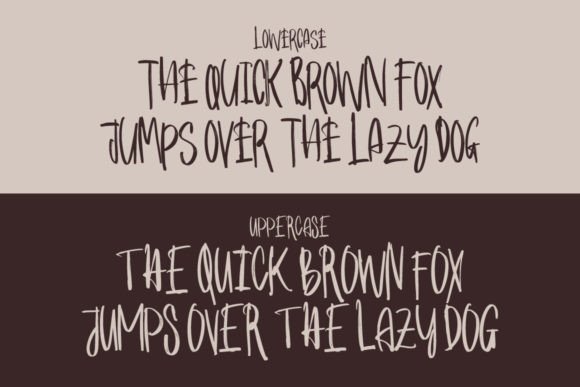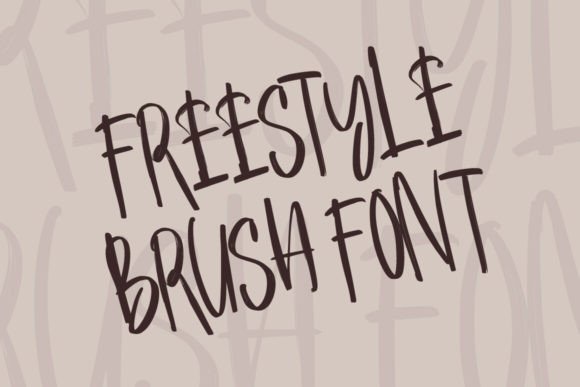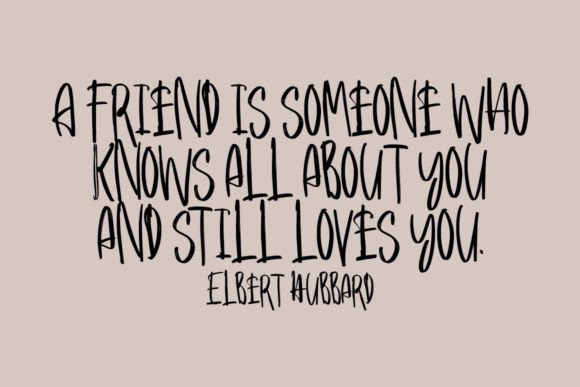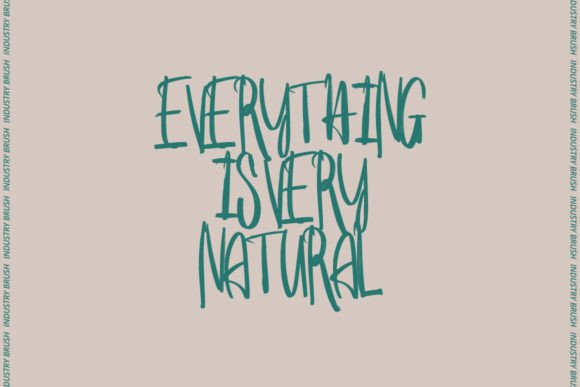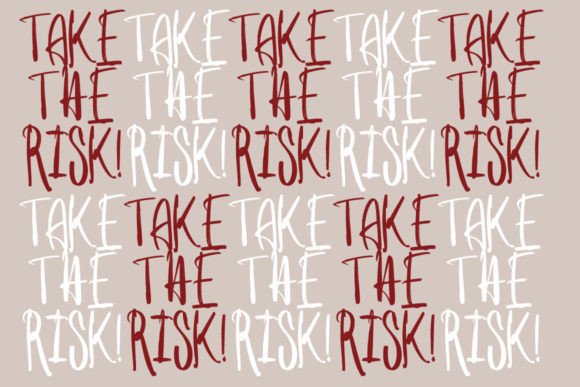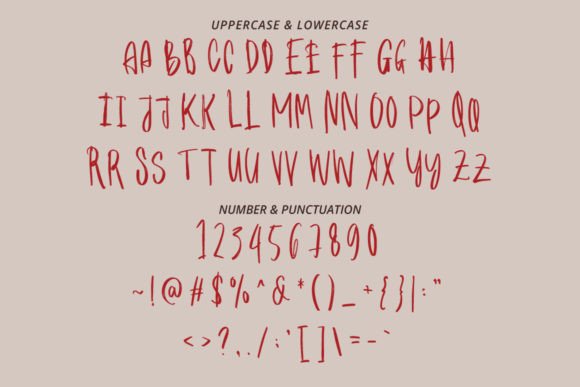
Introduction to Industry Brush Font
Industry Brush is a typeface with personality.
You can use it as a logo, badge, insignia, packaging, headline, poster, etc The alternative characters in this font were divided into several OpenType features such as Stylistic Alternates, Stylistic Sets, and Ligature The OpenType features can be accessed by using OpenType program such as Adobe Illustrator, Adobe Photoshop, and Adobe InDesign.